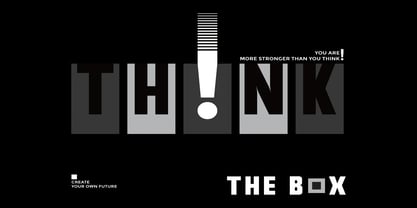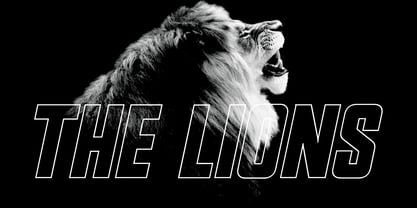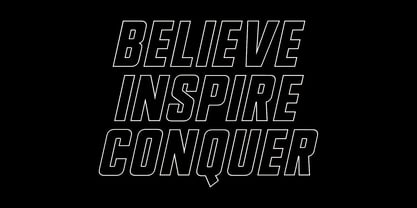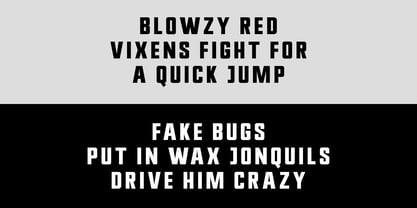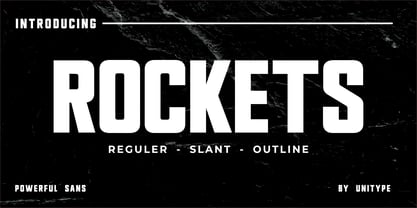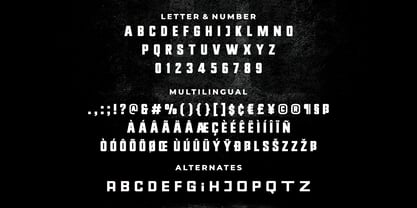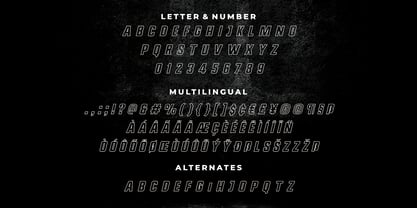
Rockets
by Unitype Studio
Rockets – Bold Sports Sans Font
Rockets is a bold and energetic sans serif font designed to bring power and momentum to your designs. With its strong letterforms and confident presence, Rockets delivers a striking visual impact that instantly captures attention.
Created with bold proportions and dynamic shapes, this typeface is perfect for headlines that need to stand out. Its strong character structure makes it especially suitable for newspaper titles, magazine covers, and sports-related designs where energy and clarity are essential.
Rockets carries a powerful and athletic personality, allowing every word to feel impactful and expressive. The solid construction and bold strokes help your message appear confident, modern, and highly readable even in large display settings.
This font works exceptionally well for high-energy design themes such as sports branding, event promotions, esports graphics, and bold advertising campaigns. Whether used for posters, banners, headlines, or digital graphics, Rockets adds strength and excitement to any composition.
If you’re looking for a typeface that delivers intensity, boldness, and visual authority, Rockets is the perfect choice. Its commanding style ensures that your designs never go unnoticed.
Key Features
Bold Sans Serif Style
Strong letterforms designed for impactful display typography.
High Visual Impact
Perfect for headlines, titles, and attention-grabbing layouts.
Sport & Energy Inspired
Ideal for sports, esports, and dynamic branding.
Clean & Modern Structure
Bold shapes with excellent readability.
Versatile Display Typeface
Works across print and digital design projects.
Perfect For
• Sports Branding
• Magazine & Newspaper Headlines
• Event Posters
• Advertising Campaigns
• Social Media Graphics
• Esports Designs
• Banners & Promotional Materials
• Athletic & Fitness Branding
Power Up Your Designs with Rockets
Add bold energy and unstoppable impact to your creative projects with Rockets. Designed to command attention and amplify your message, this powerful sans font is the perfect choice for designers who want their typography to stand out.